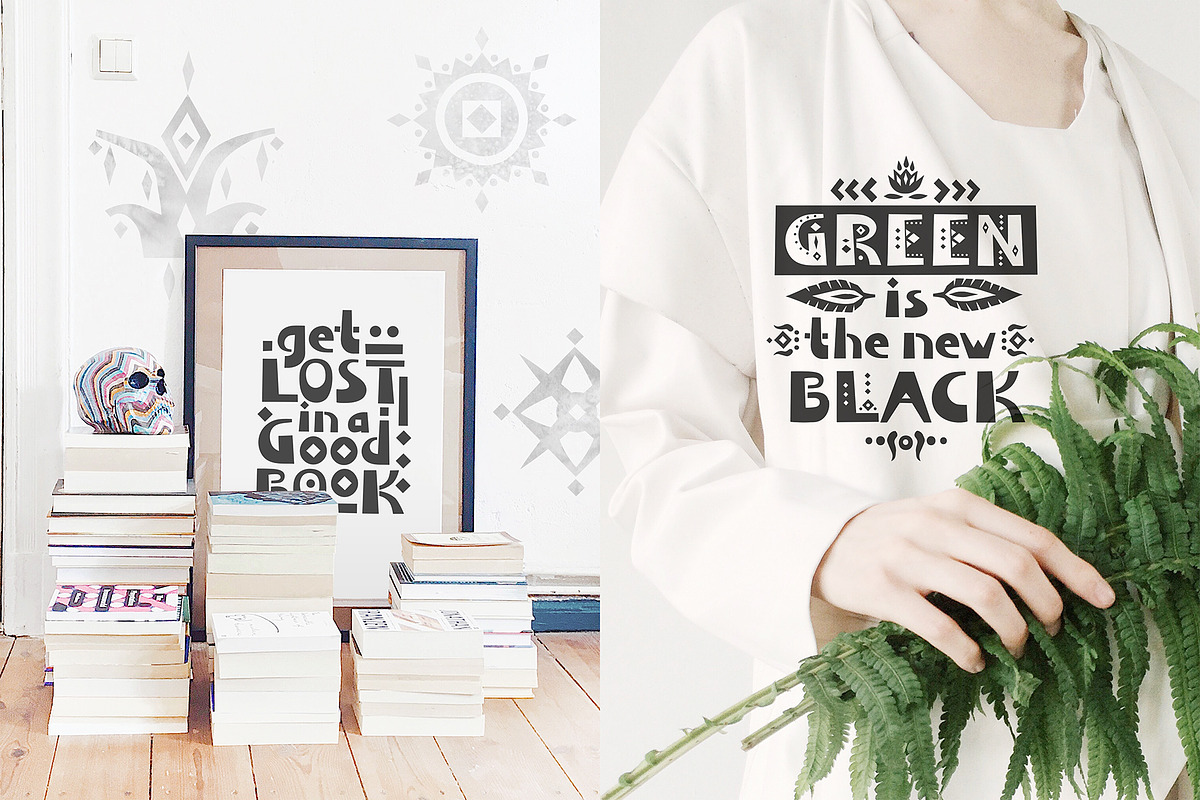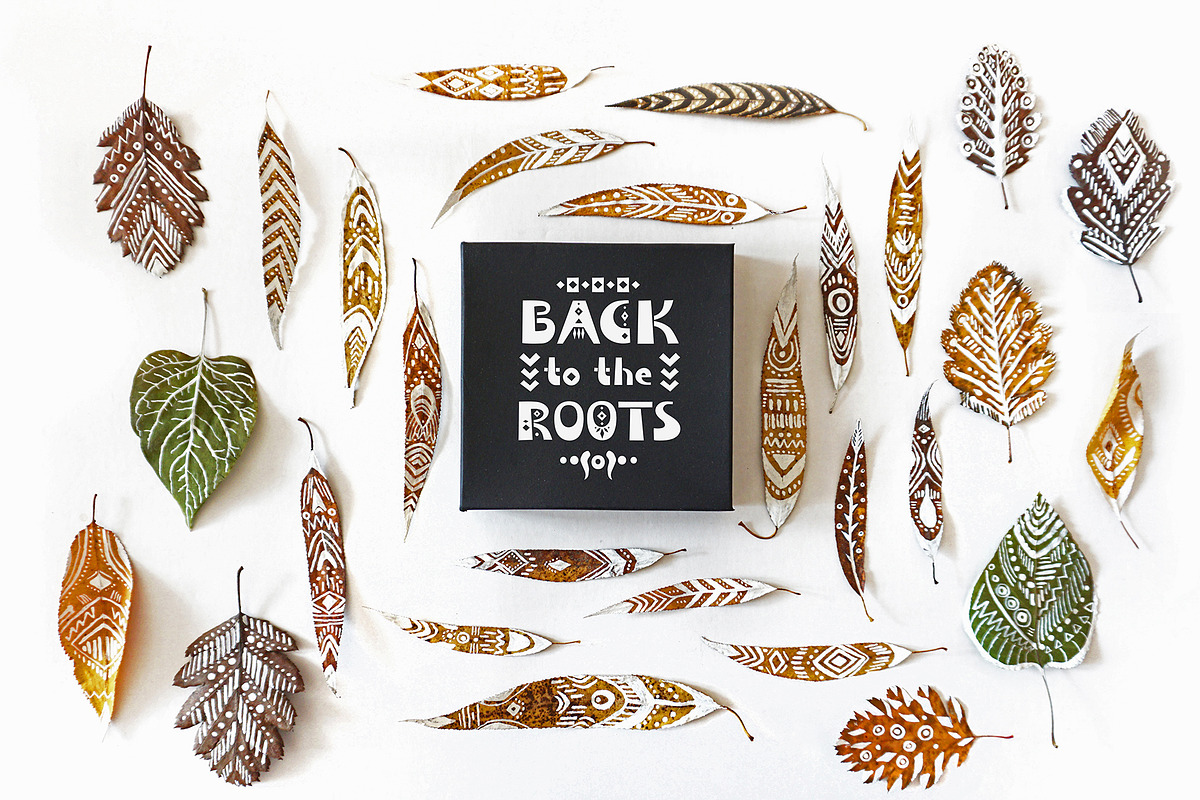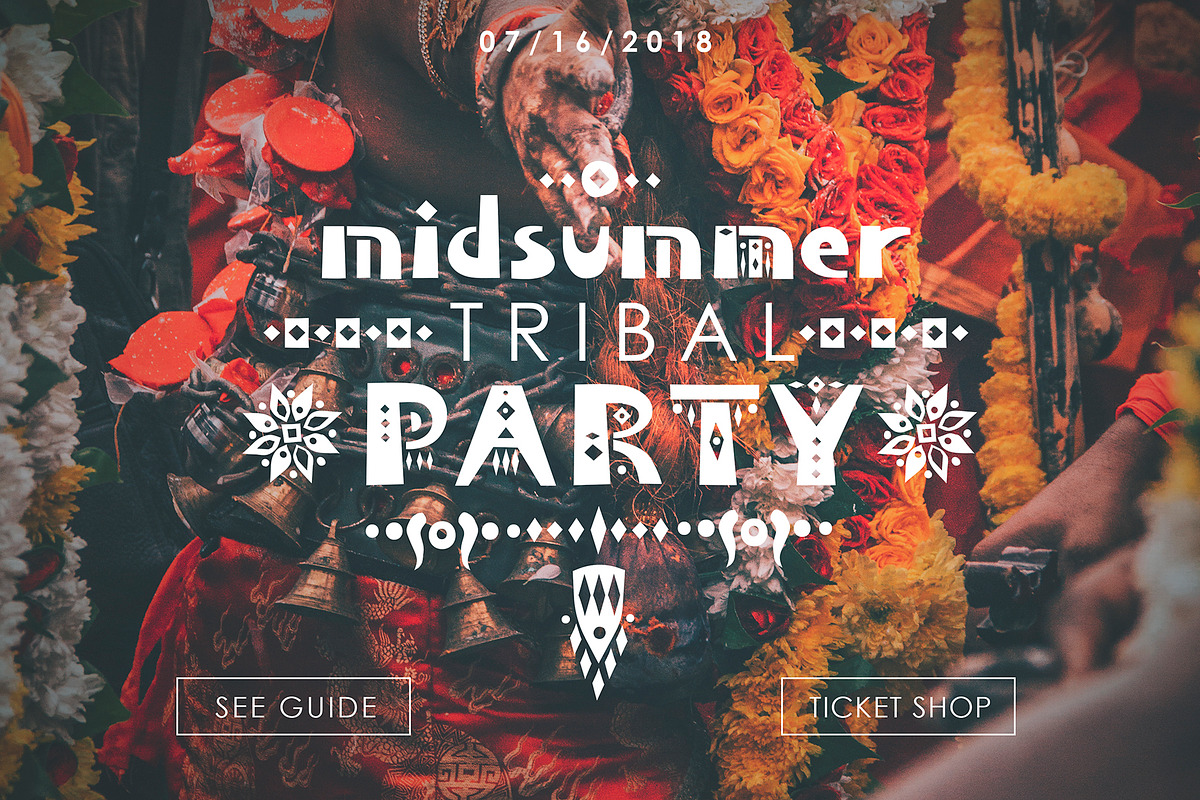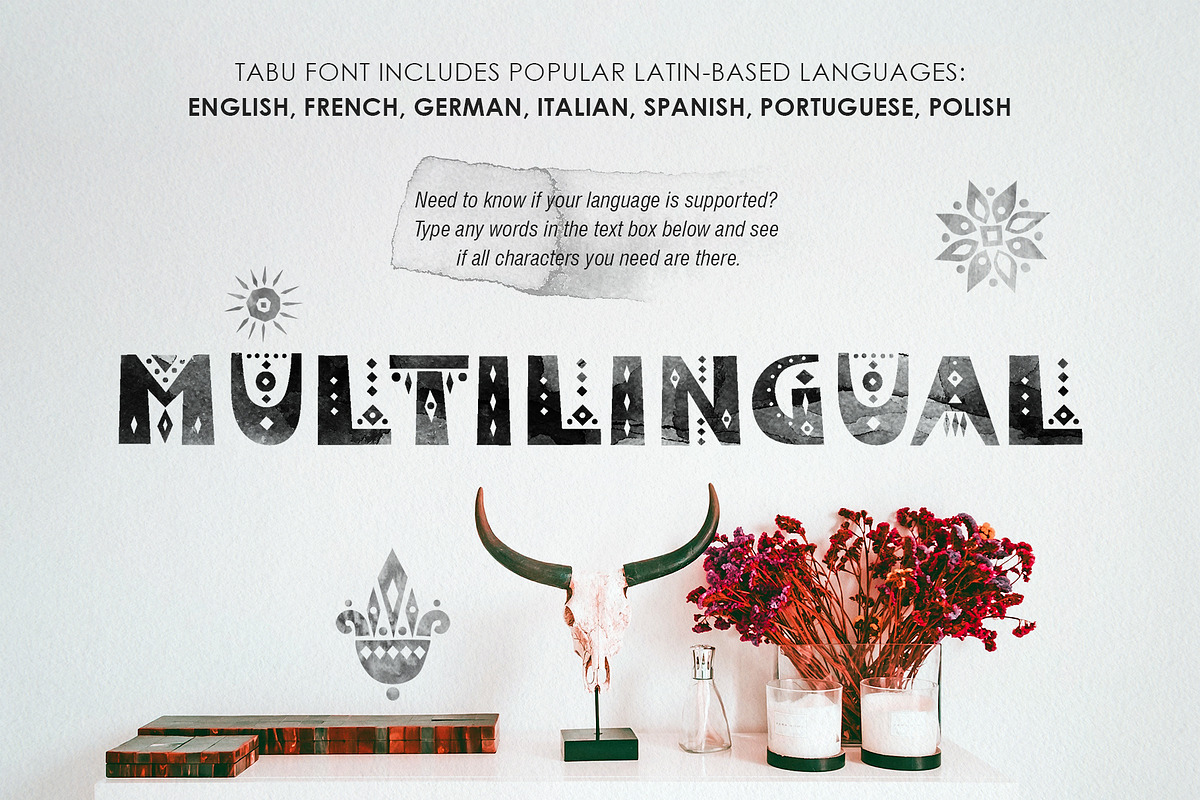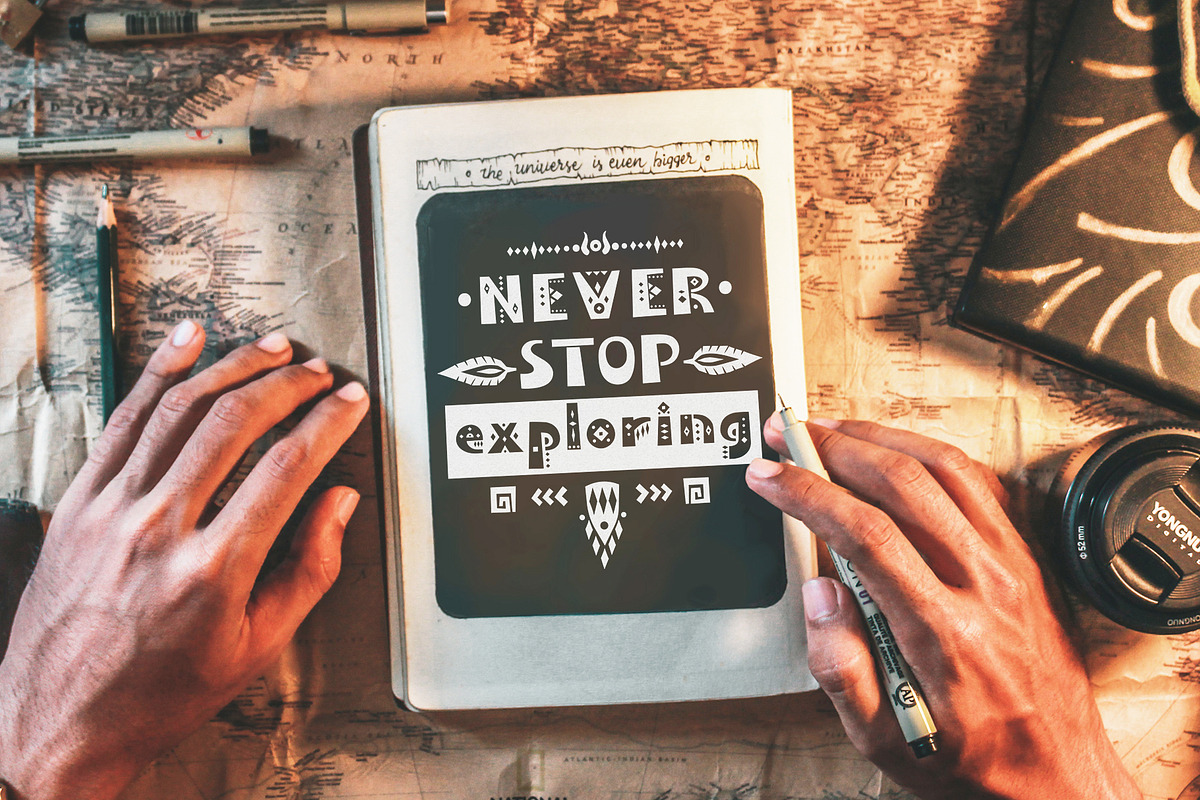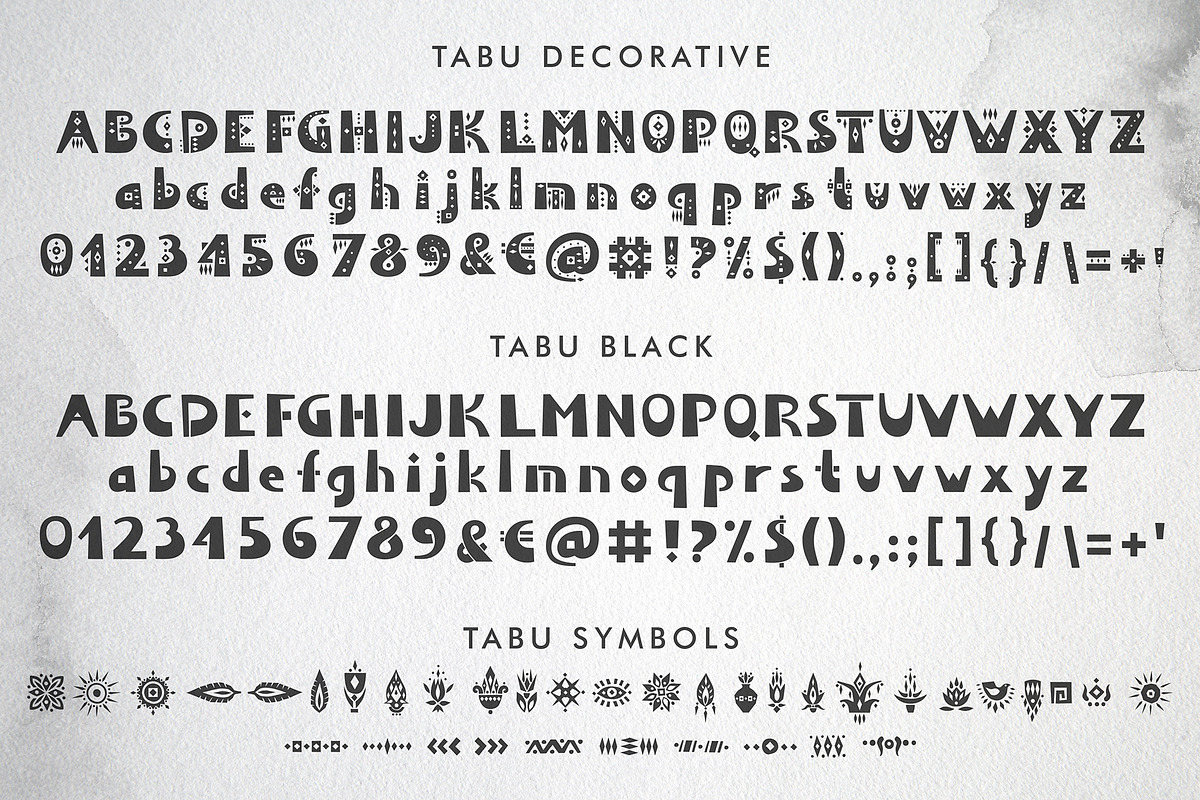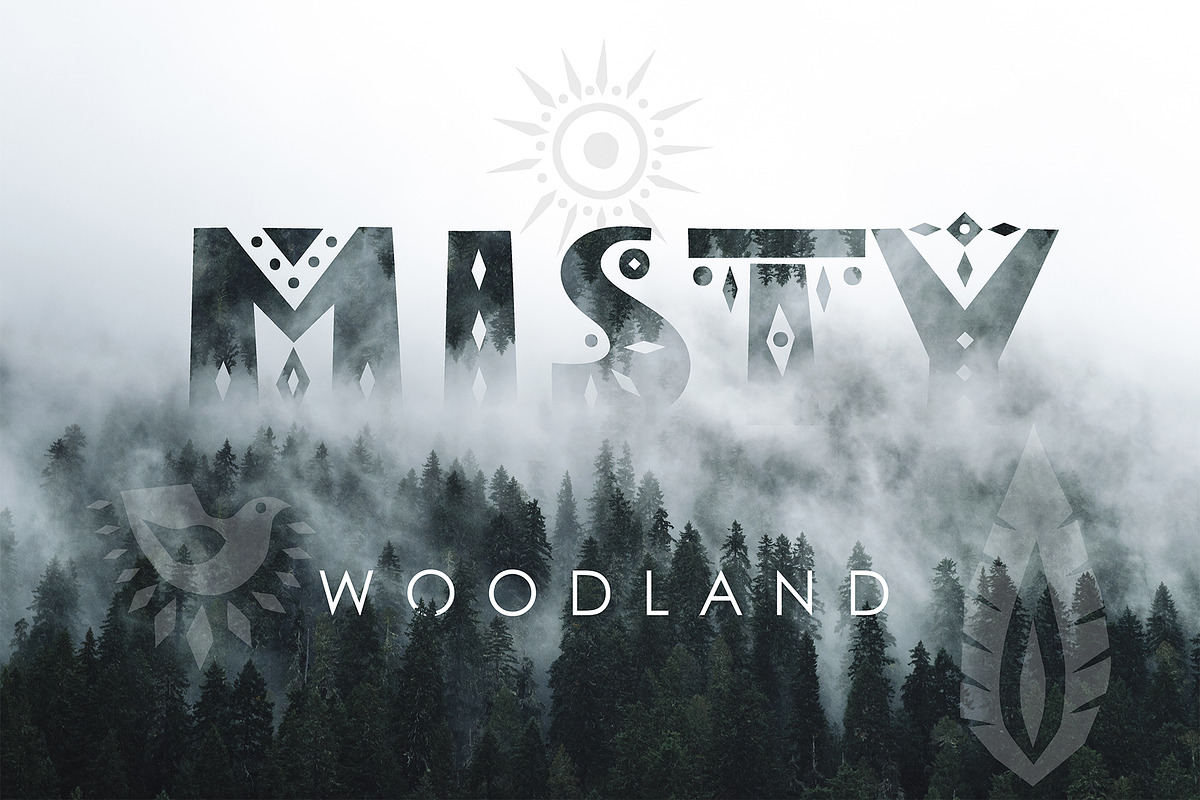
Tabu - Tribal Font Family
I would like to introduce my new product - TABU Tribal font family. TABU is a display font decorated with tribal patterns. The typeface includes Decorative, Black and Symbol versions. The font is easy to use in various design programs or without any program.
TABU font is suitable for lettering posters and cards, tourist brochures, photo overlays, book covers and article titles. The font works great both for printing clothes and craft products branding and packaging (floristics, soap making, natural cosmetics). Also use individual letters to create logos and monograms.
The font has extensive language support, it includes English, French, German, Italian, Spanish, Portuguese, Polish. Need to know if your language is supported? Type any words in the text box below and see if all characters you need are there.
- TABU Decorative
- TABU Black
- TABU Symbols